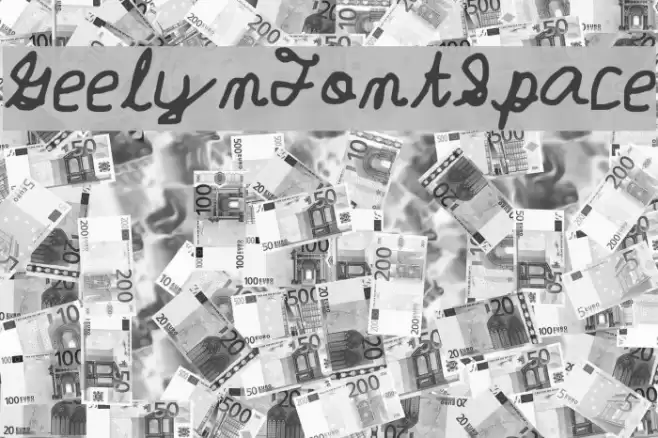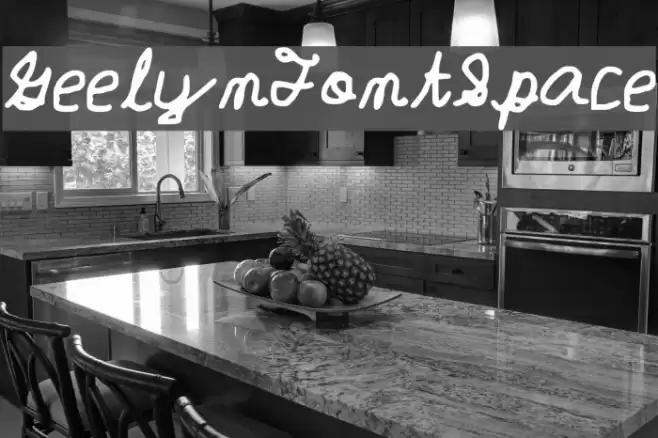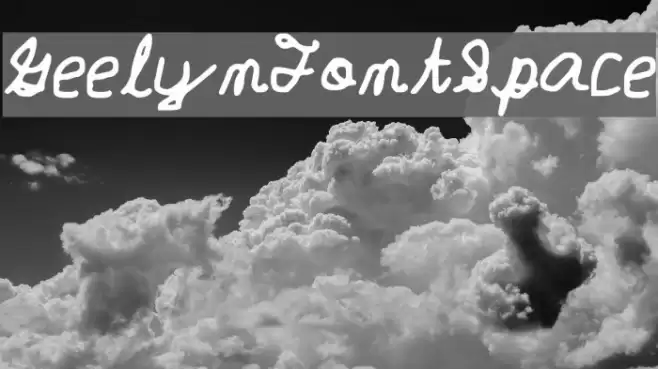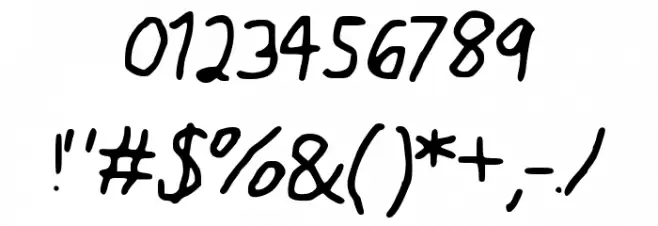
Geelyn___FontSpace_ Font
Geelyn___FontSpace_ Description
This font features a playful and casual handwritten style, characterized by its fluid and connected strokes. The letters exhibit a natural flow, reminiscent of quick, informal handwriting. The uppercase letters maintain a consistent height, while the lowercase letters vary slightly, adding to the organic feel. The numbers and special characters follow the same handwritten aesthetic, ensuring a cohesive look across all glyphs. This font's informal and approachable style makes it ideal for projects that require a personal touch.
A playful, casual handwritten font with fluid, connected strokes from Uncategorized fonts.
- Proposed Projects: Ideal for greeting cards, personal notes, invitations, and informal branding projects.
- Overall Style: Casual, Playful
- Use Case: Logos, Invitations, Personal notes